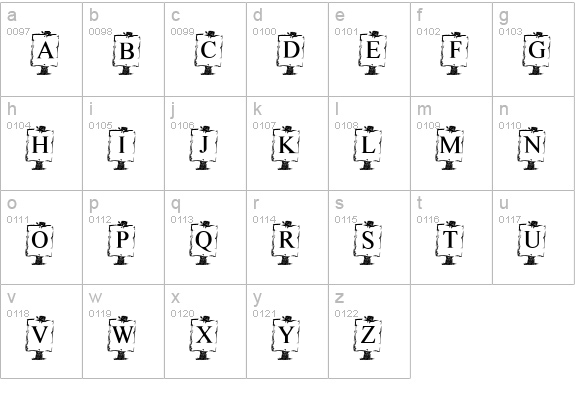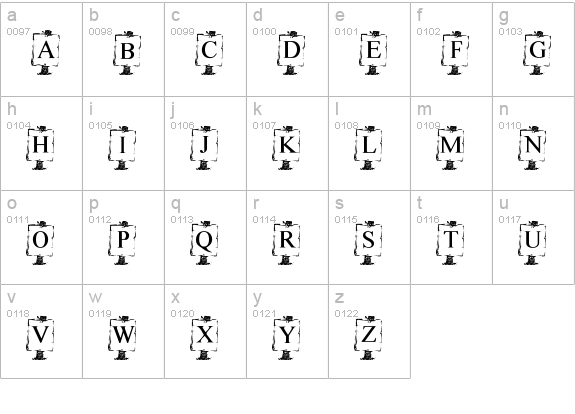
Summer's Signs Font Details
Introducing Summer's Signs font, a whimsical and playful typeface that will add a touch of charm to your designs. This delightful font captures the essence of a carefree summer day, with its flowing lines and cheerful demeanor. Perfect for invitations, greeting cards, posters, and more, Summer's Signs will bring a sunny vibe to any project. And the best part? Summer's Signs font is completely free to download at FontsMarket.com. So go ahead and bring a little bit of summer into your designs with this lovely font.